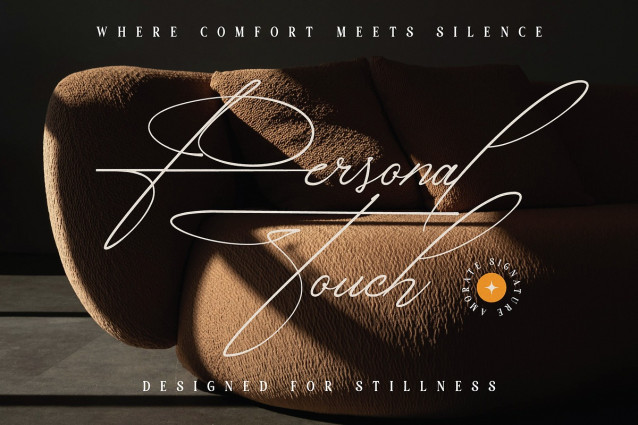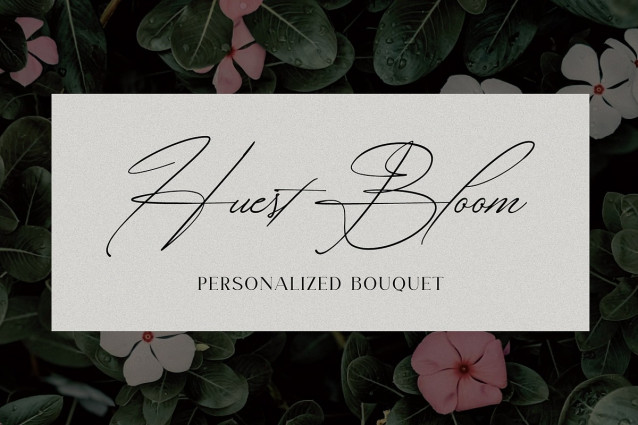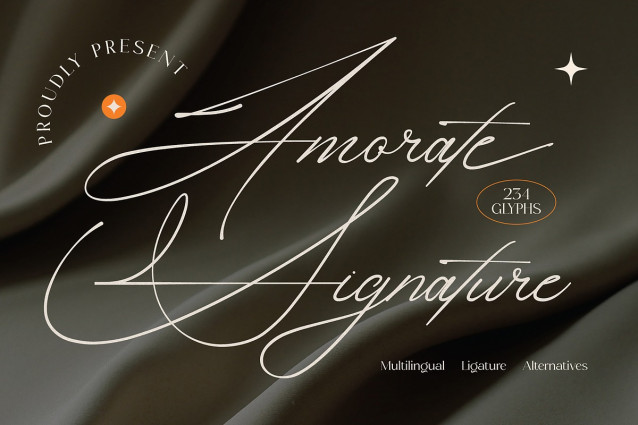
Amorate Signature Script Font
Amorate Signature Script Font is an elegant signature-style script font designed with long, flowing strokes and refined handwritten details. Its smooth curves and graceful letterforms create a luxurious, romantic, and personal feel-perfect for logos, branding, wedding designs, fashion editorials, and premium social media visuals.